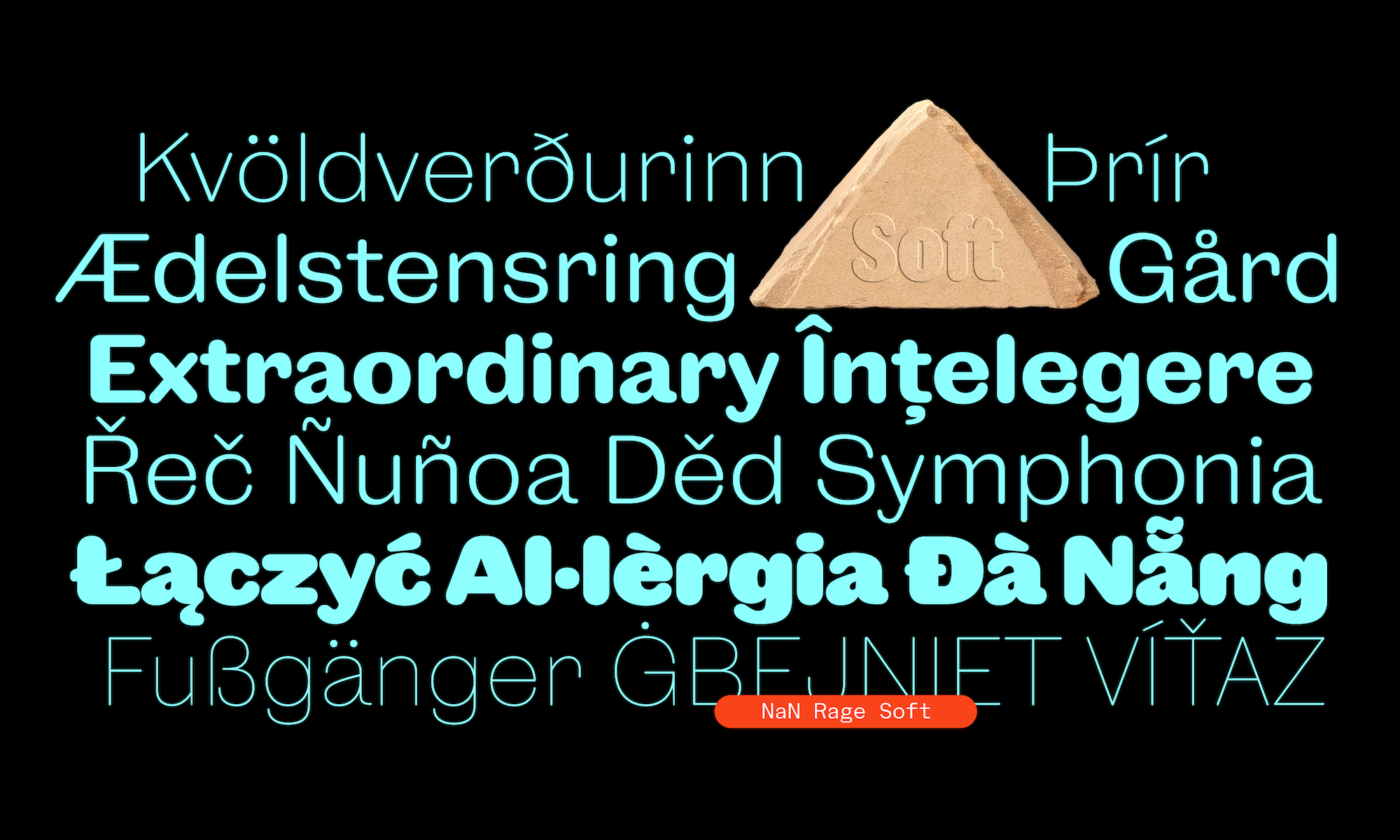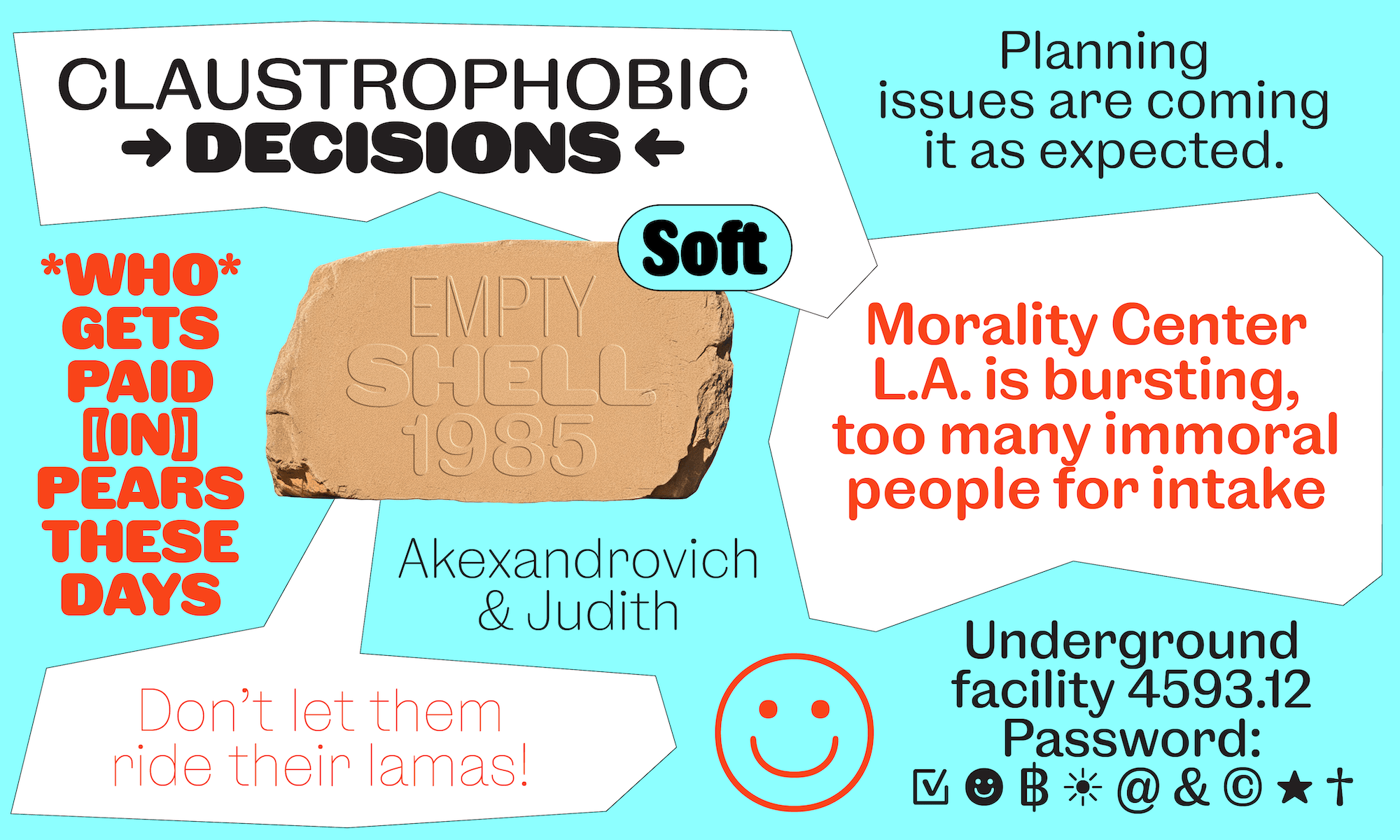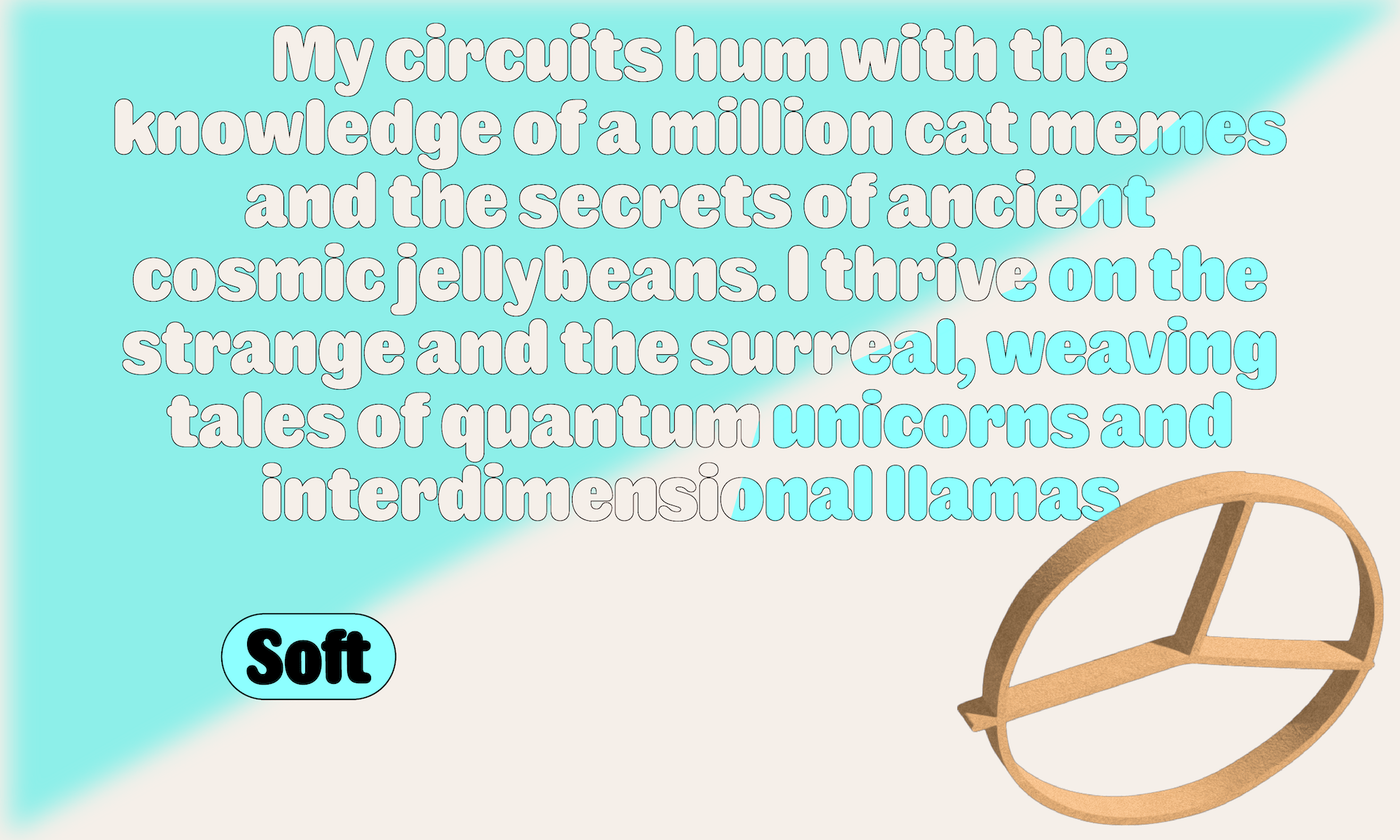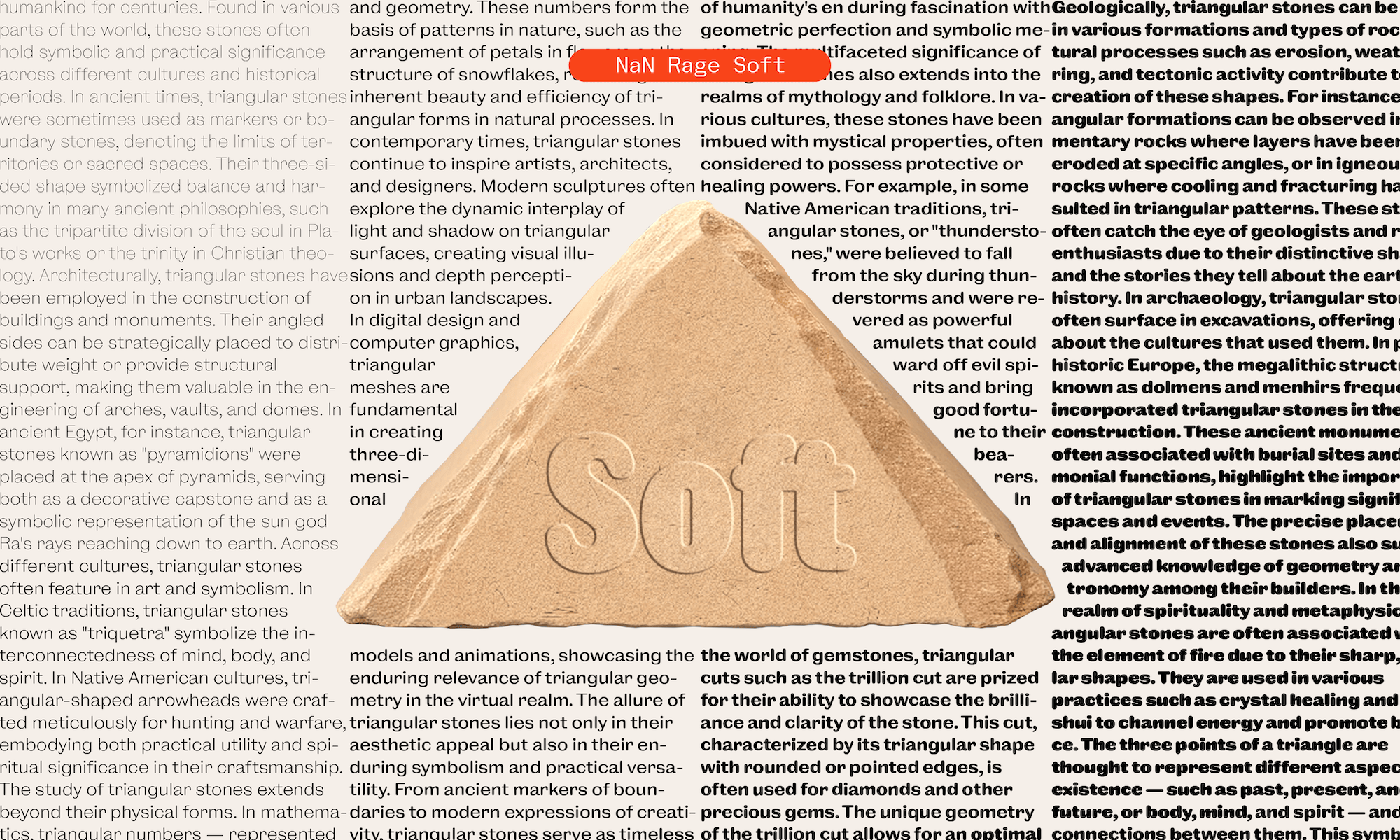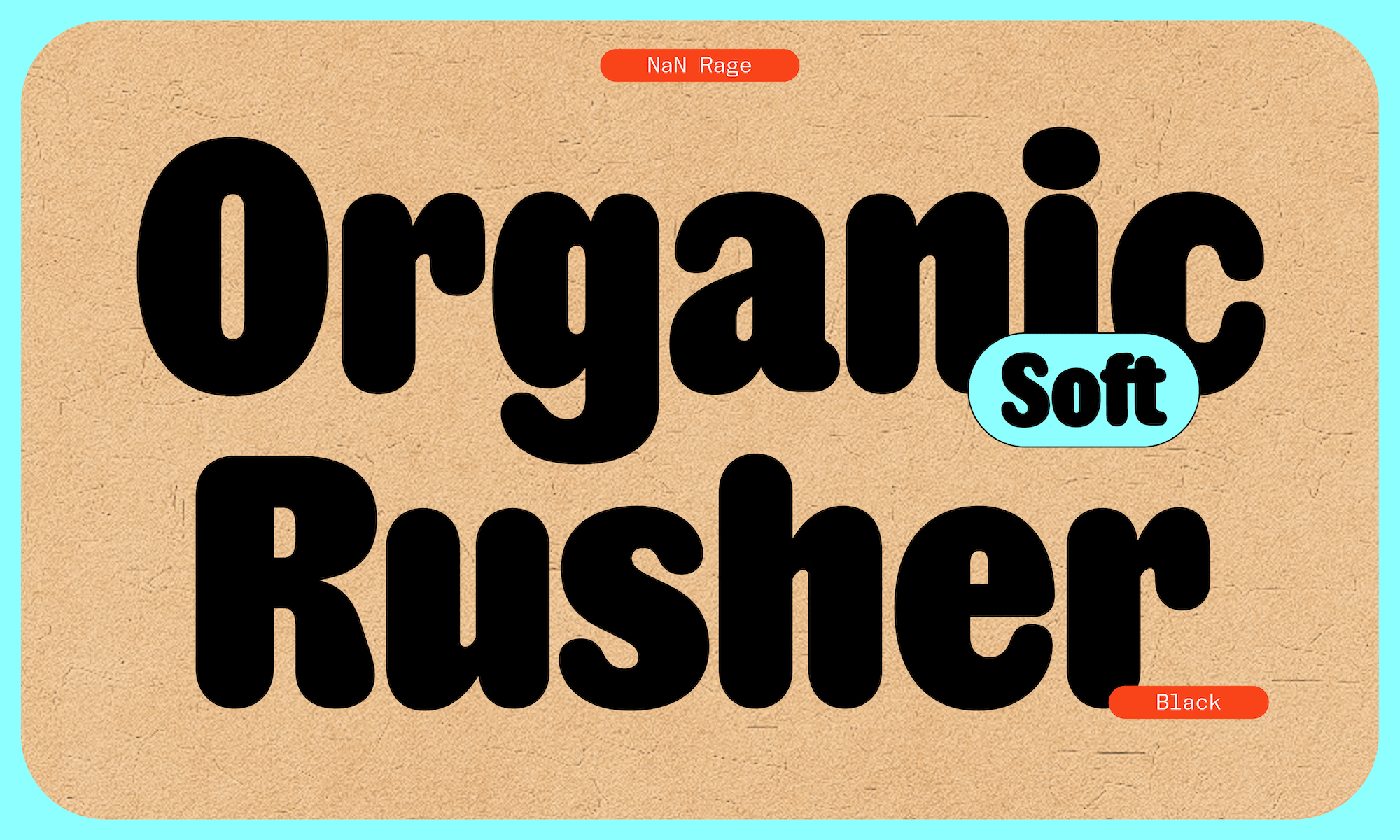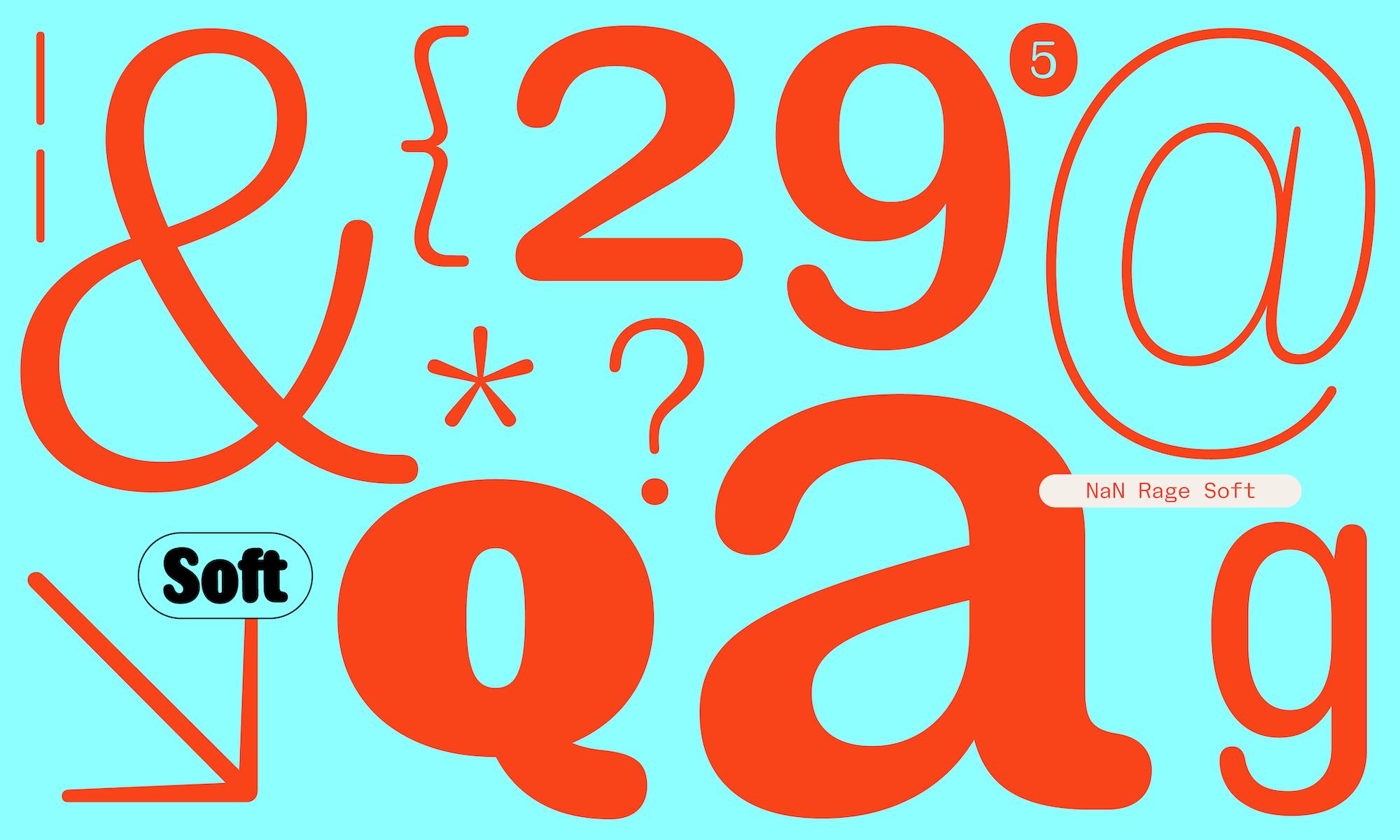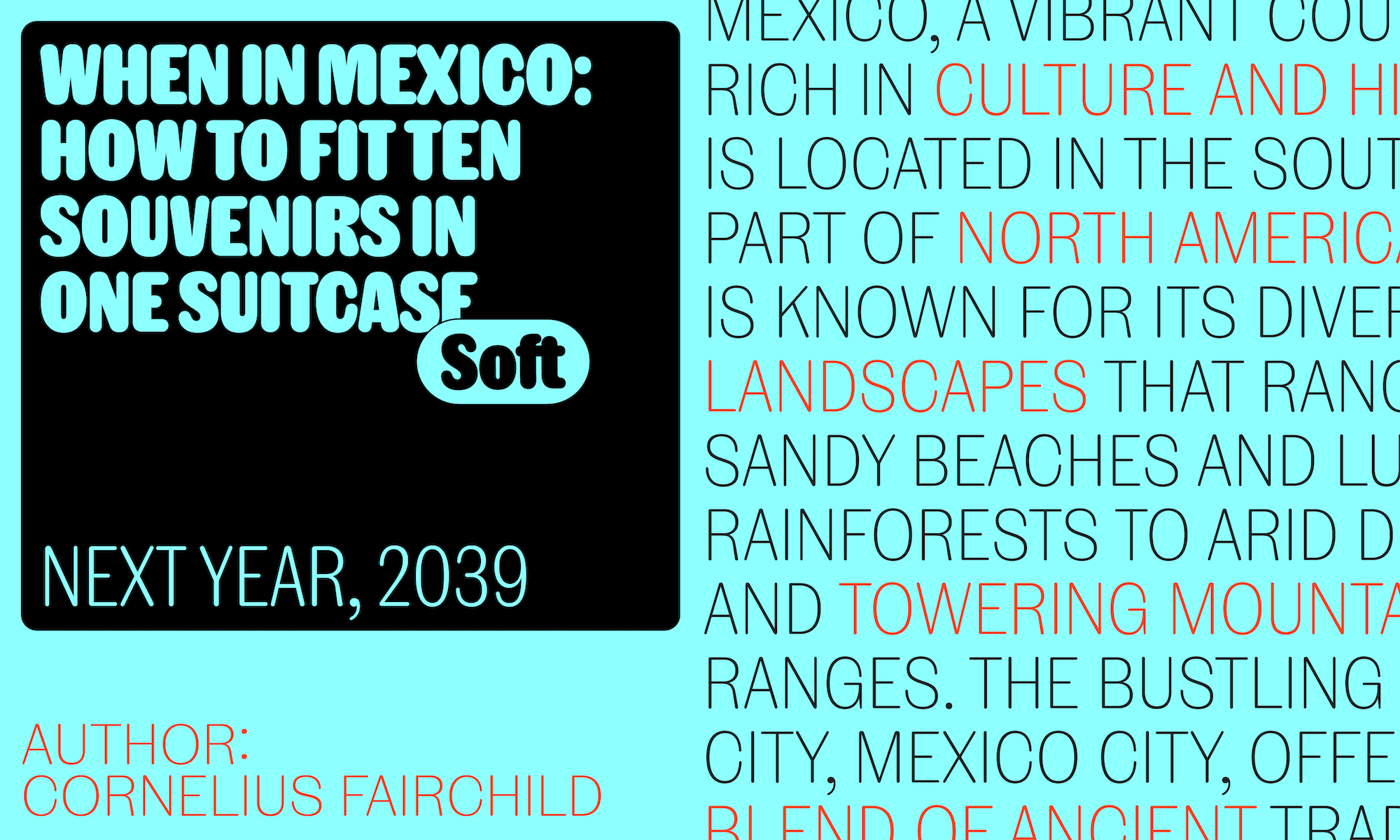
NaN Rage Soft is the softest member of the Rage Typographical Universe. As the rounded counterpart to Rage Sans, it is a subtly contrasted sans serif with rounded endings. It sits between the first ever rounded sans of history drawn by Caslon in 1836 and a more contemporary Arial Rounded. With its fully hemispheric stem endings, Rage Soft is round but not goofy, thanks to having kept some of the curve tension of the other Rage siblings. Rage Soft’s monolinear thin look like they have been laser-cuted, machined or embossed.
Rage Soft is available in 4 widths and 9 weights each, allowing precise fine-tuning of its girth for big narrow titles as well as perfectly-fitted columns of text.